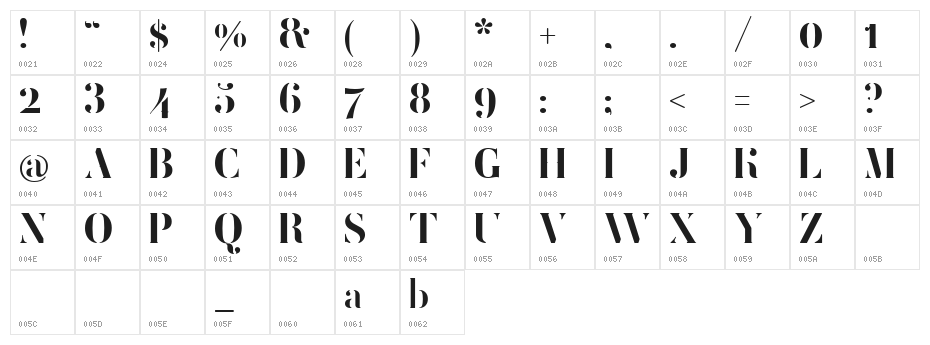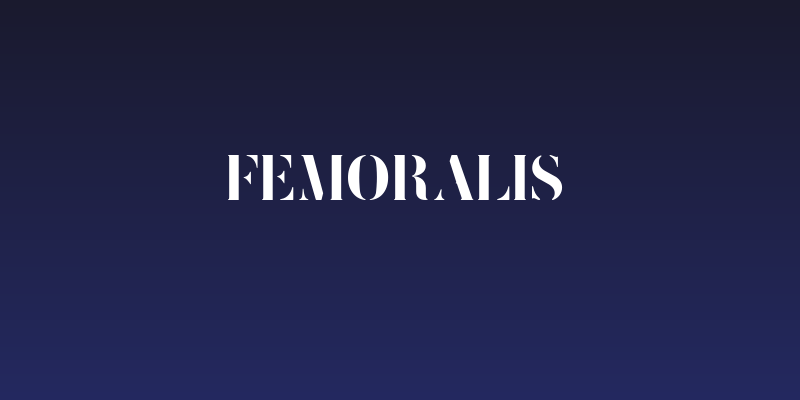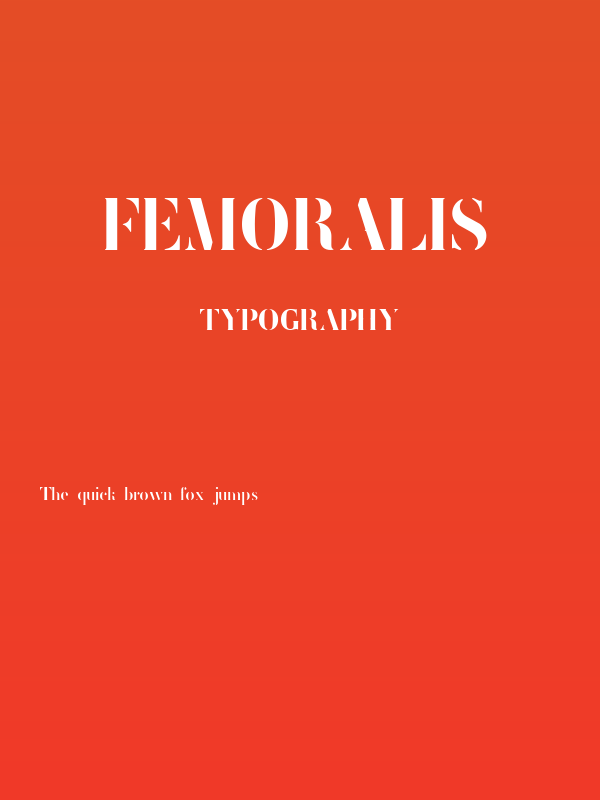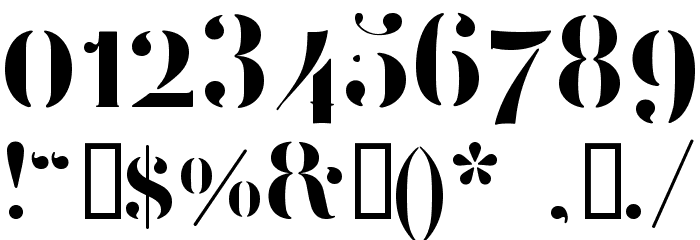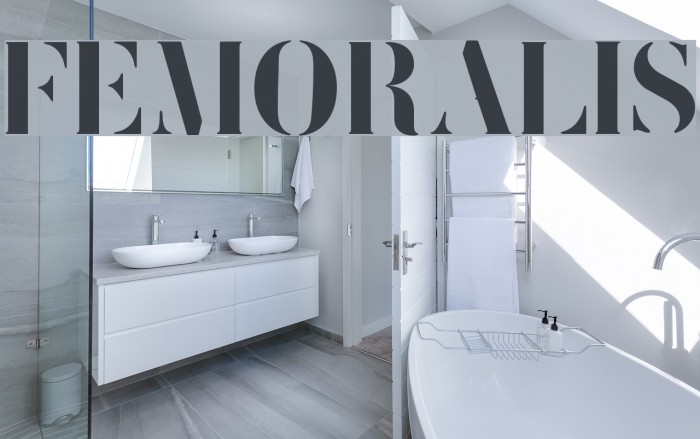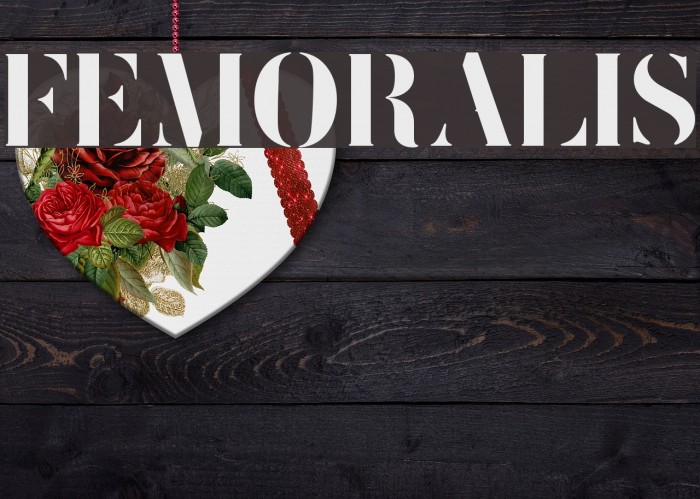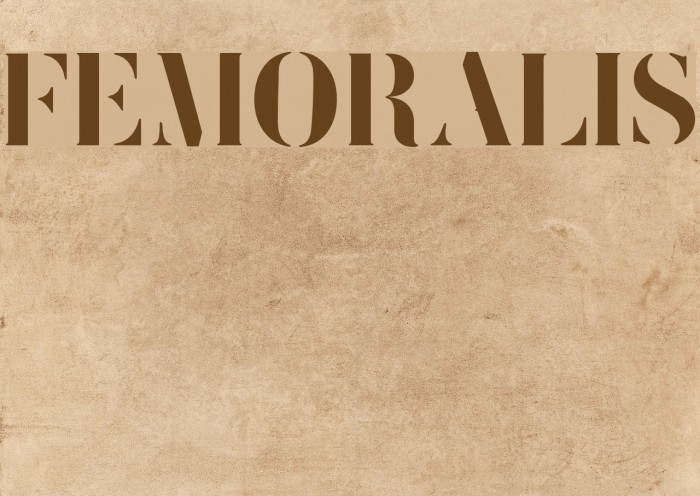
FEMORALIS Font
FEMORALIS Description
This font features a bold and striking design with high contrast between thick and thin strokes, creating a dramatic and eye-catching appearance. The uppercase letters are characterized by sharp, angular serifs and a geometric structure, while the lowercase letters maintain a consistent style with unique dot accents on certain characters. The numerals are equally bold, with distinct curves and angles that enhance readability. Special characters are designed with the same boldness and attention to detail, making them stand out in any composition. Overall, this font exudes a modern and sophisticated vibe, perfect for making a statement.
| Proposed Projects | Ideal for branding, headlines, posters, and editorial design where a strong visual impact is desired. |